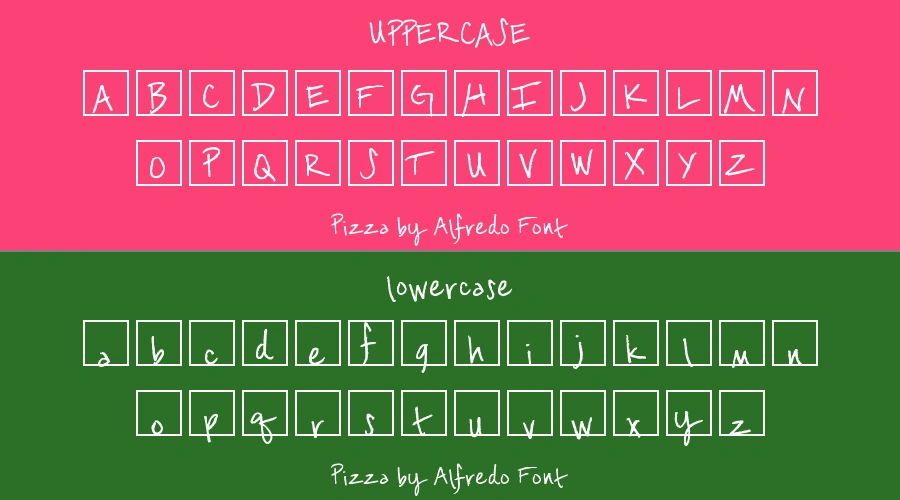
Pizza by Alfredo Font represents a sophisticated approach to type design, balancing playful elements with tradition. Perfect for academic publications, this font family showcases impressive adaptability and design innovation throughout its character set. Designers appreciate its versatility and reliability.
Designers will appreciate nuanced touches including balanced tension and text figures, adding sophistication to any project. These features become apparent in specification sheets, where language switching matters most. The careful treatment of joint detail and historical reference ensures optimal performance.